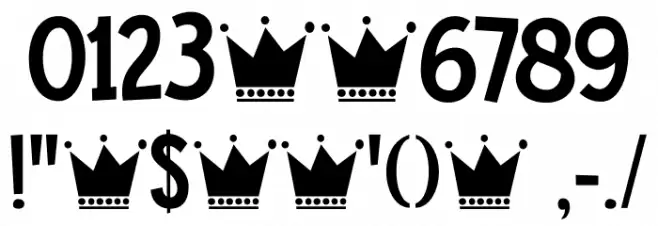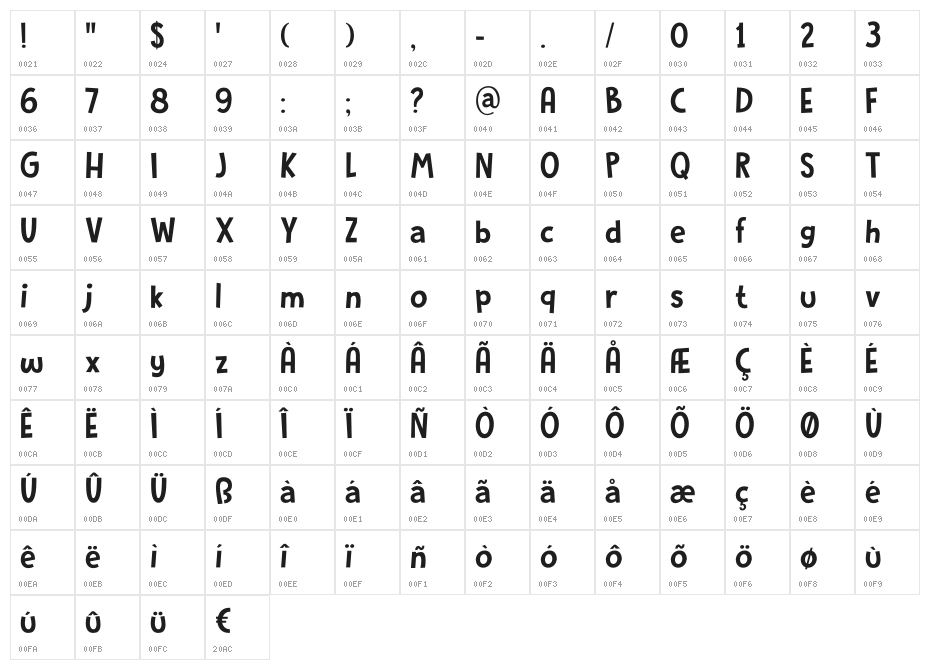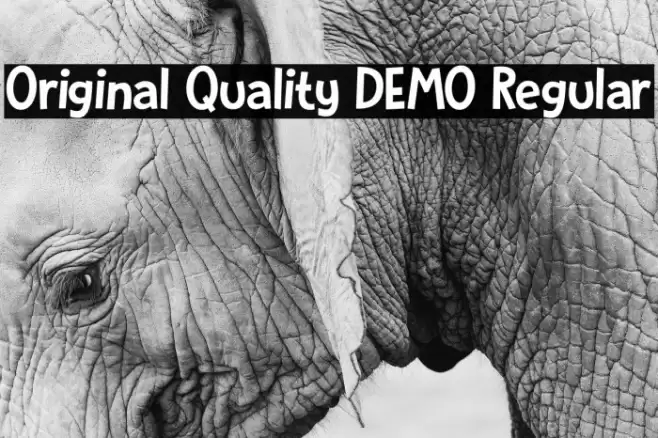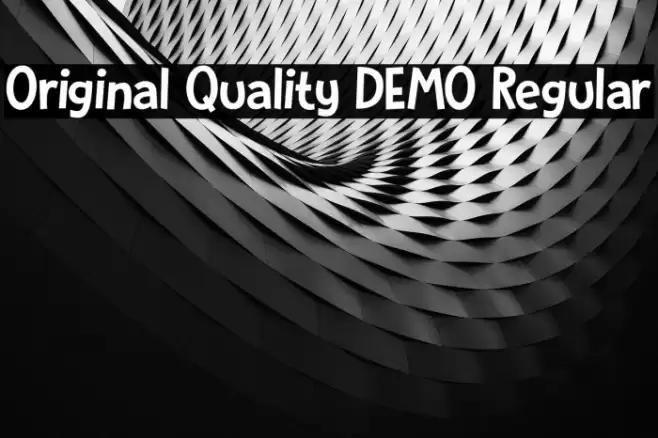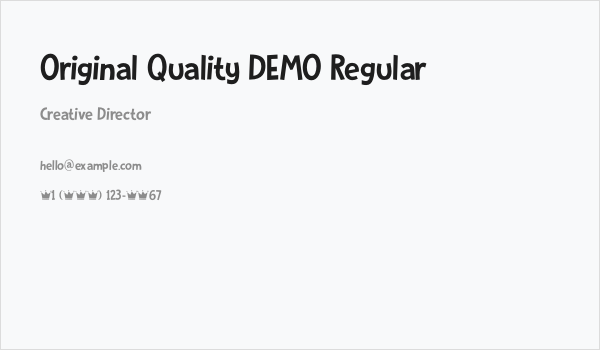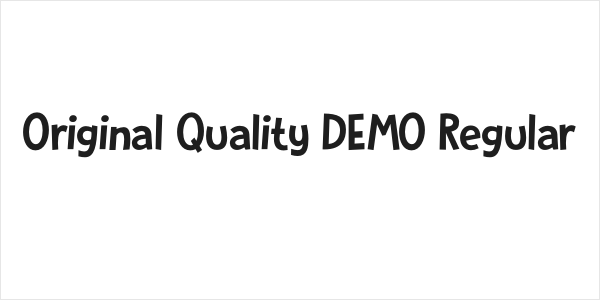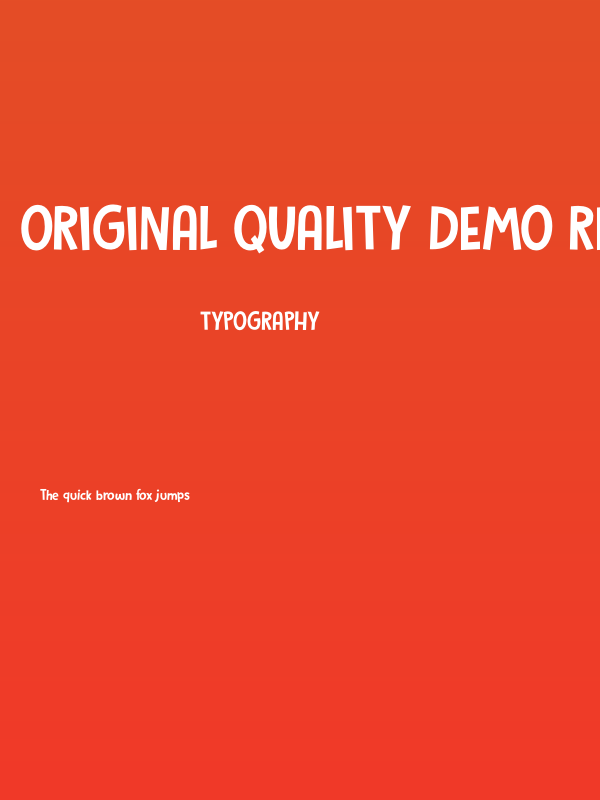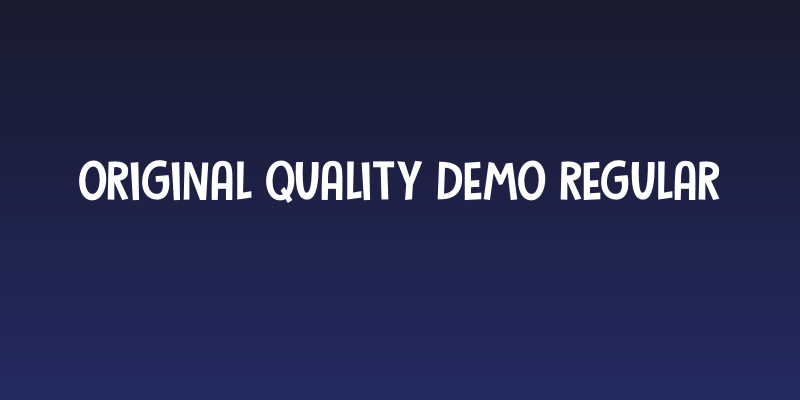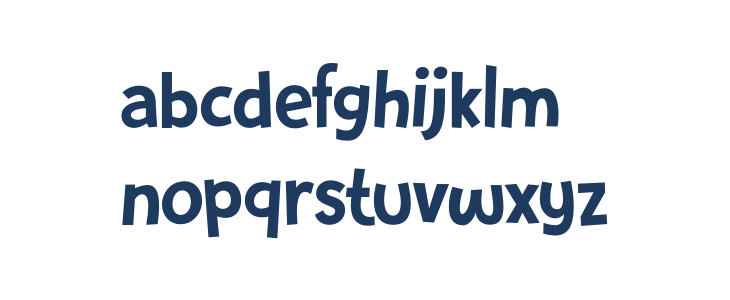
Original Quality DEMO Regular Font
Original Quality DEMO Regular Description
This font features a playful and bold style with a slightly whimsical touch. The characters are rounded and have a consistent thickness, giving them a friendly and approachable appearance. The uppercase letters are tall and slightly narrow, while the lowercase letters maintain a similar width, creating a cohesive look across both cases. The numbers are bold and easy to read, matching the overall style of the alphabet. Special characters are included, such as punctuation marks and symbols, which are designed to complement the font's playful nature. This font is ideal for projects that require a fun and engaging typeface.
| Proposed Projects | Ideal for children's books, playful branding, posters, and social media graphics. |